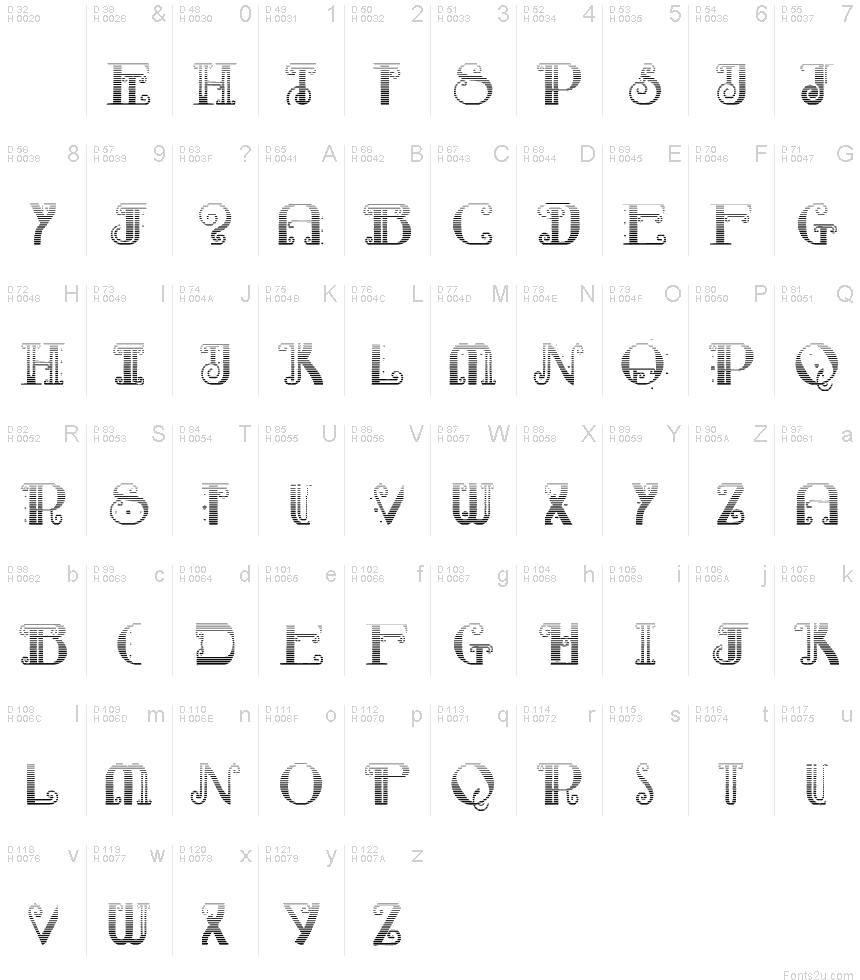
Rebimboca Gradient by Paulo W of Intellecta Design is a free striped decorative display font with stately, high-contrast letterforms. Dense horizontal bands cross the strokes, and curled ball terminals give the capitals an ornate, slightly eccentric finish.
Posters are its strongest medium, especially for music events, theatrical programs, and editorial covers that use the striping as a built-in graphic texture. Its formal structure and unusual surface treatment also suit boutique branding aimed at audiences drawn to theatrical or vintage-inspired design.
Rebimboca Gradient